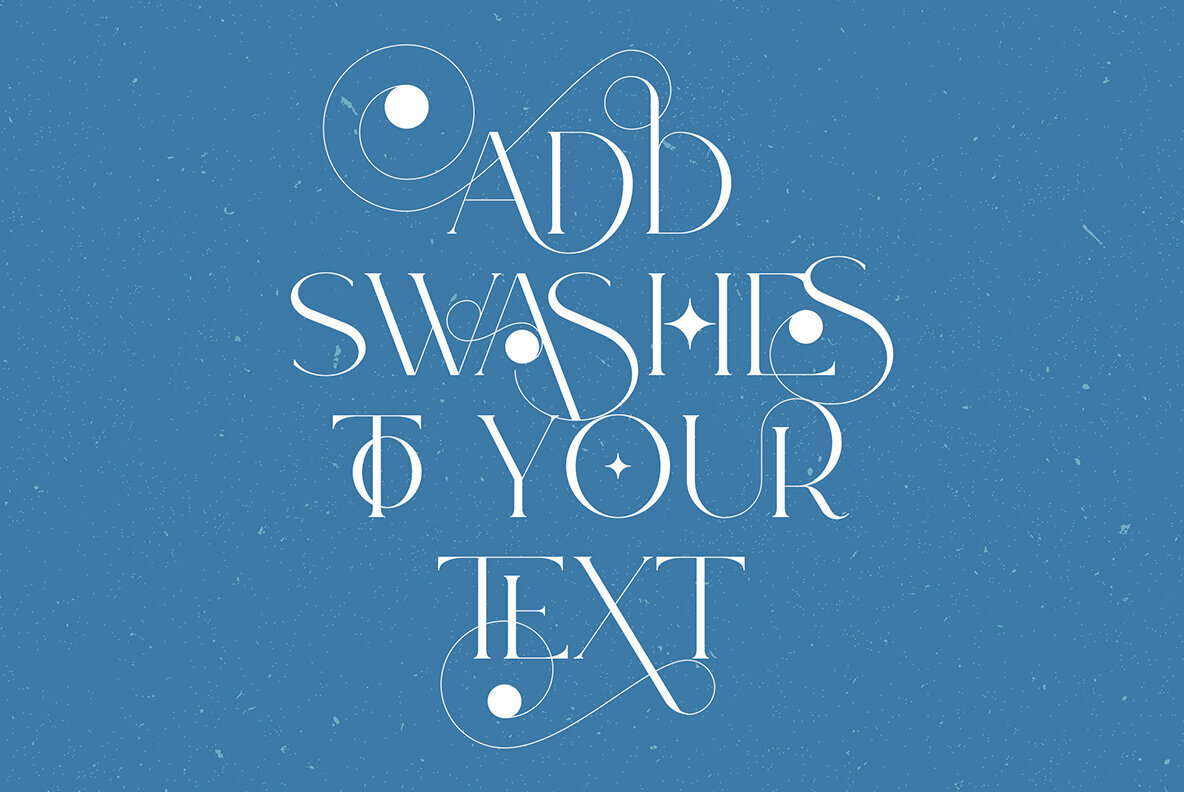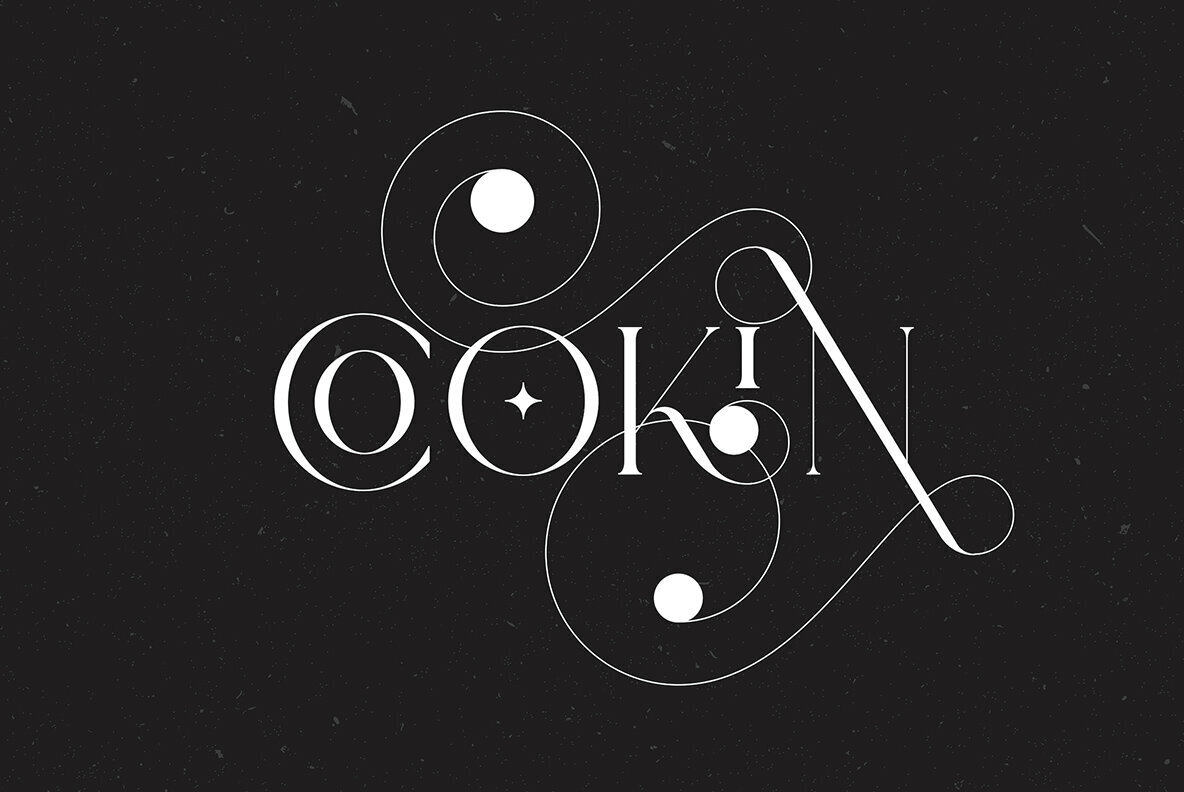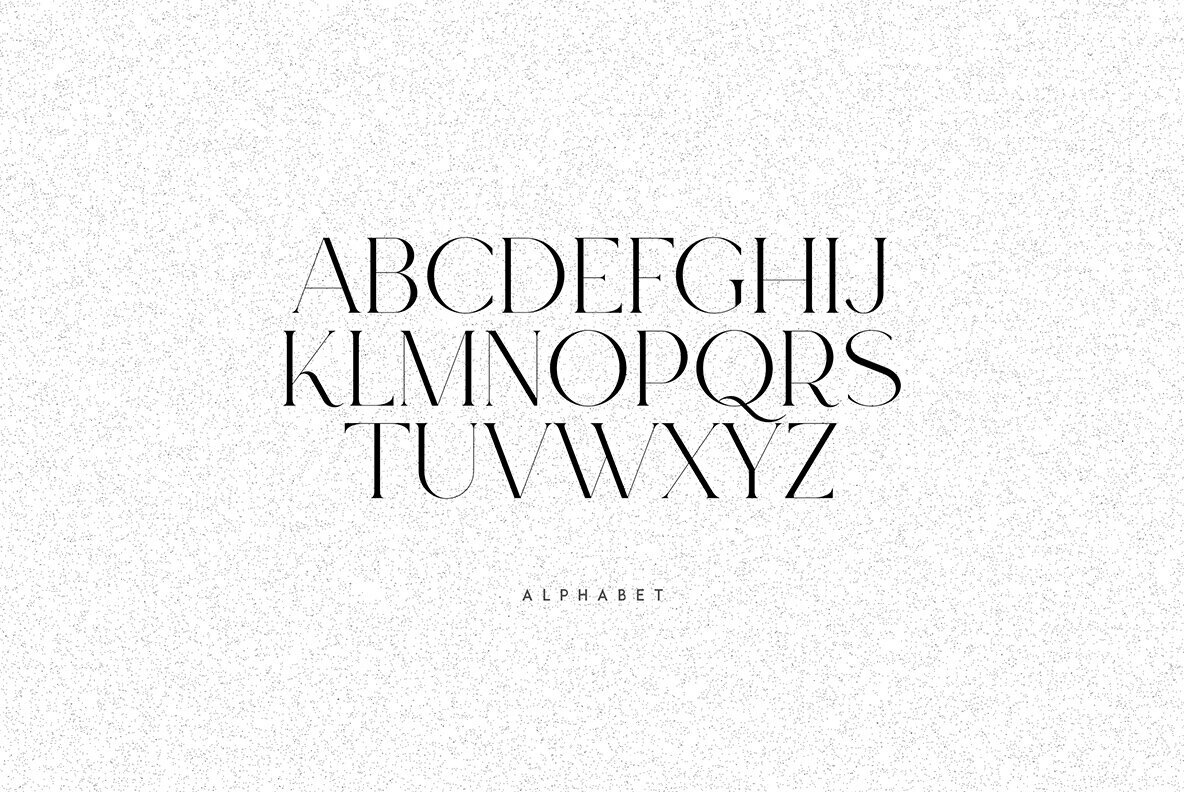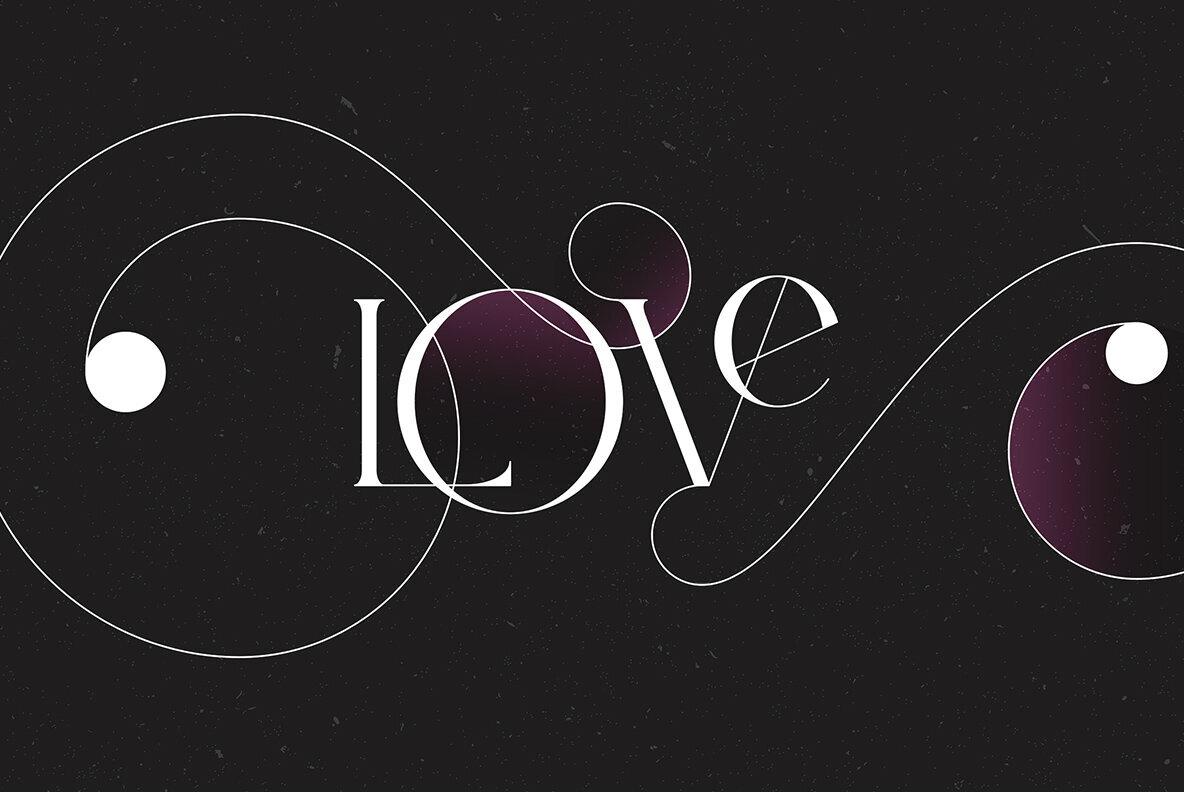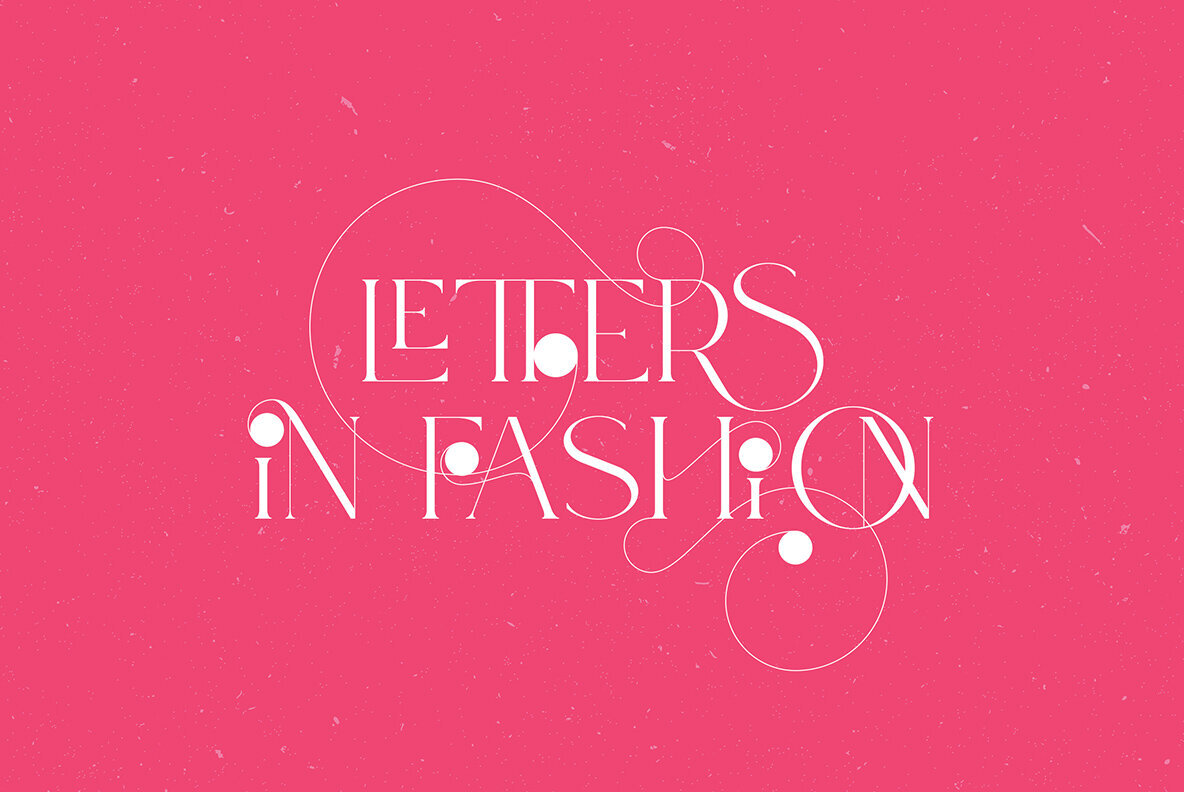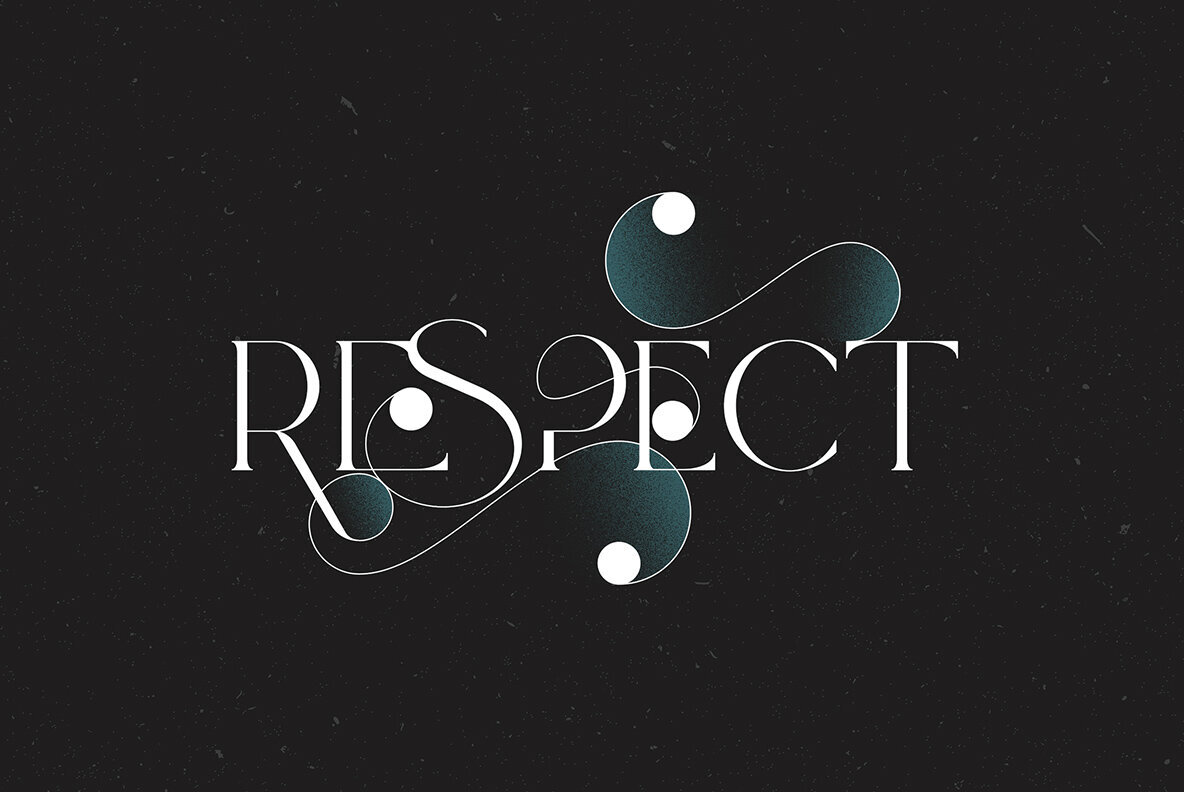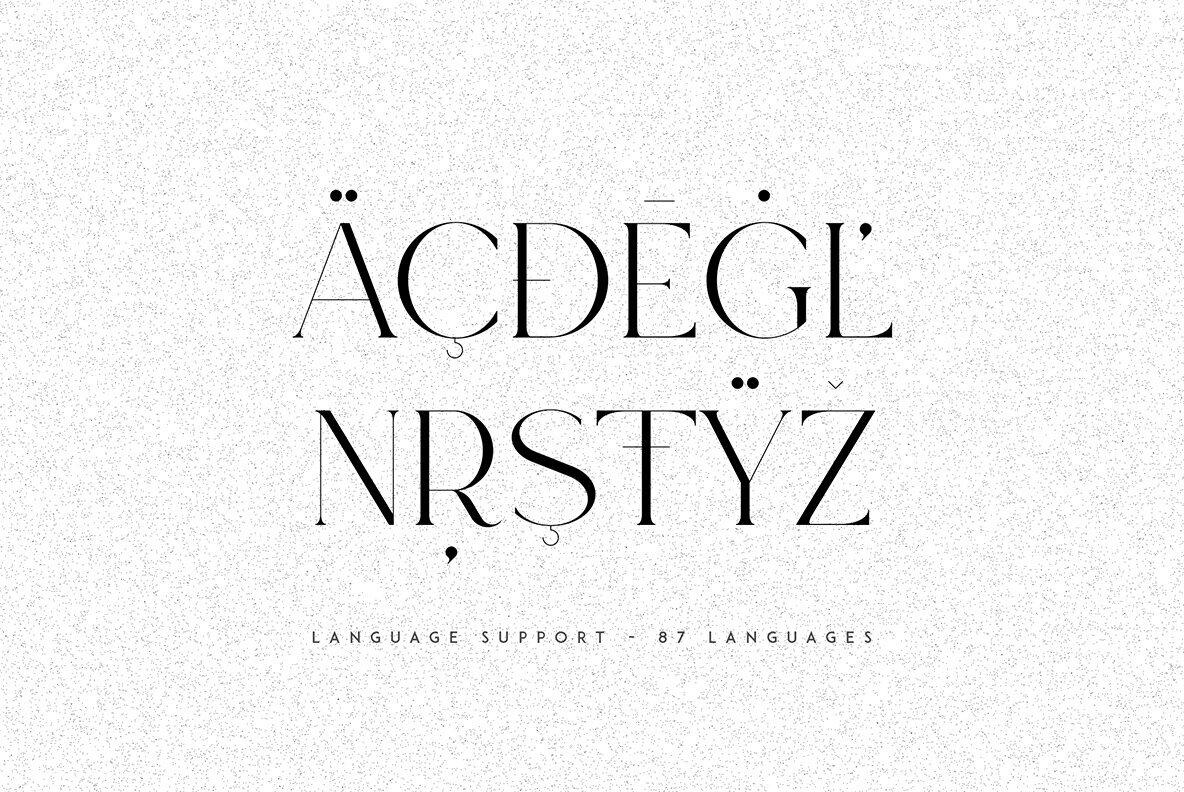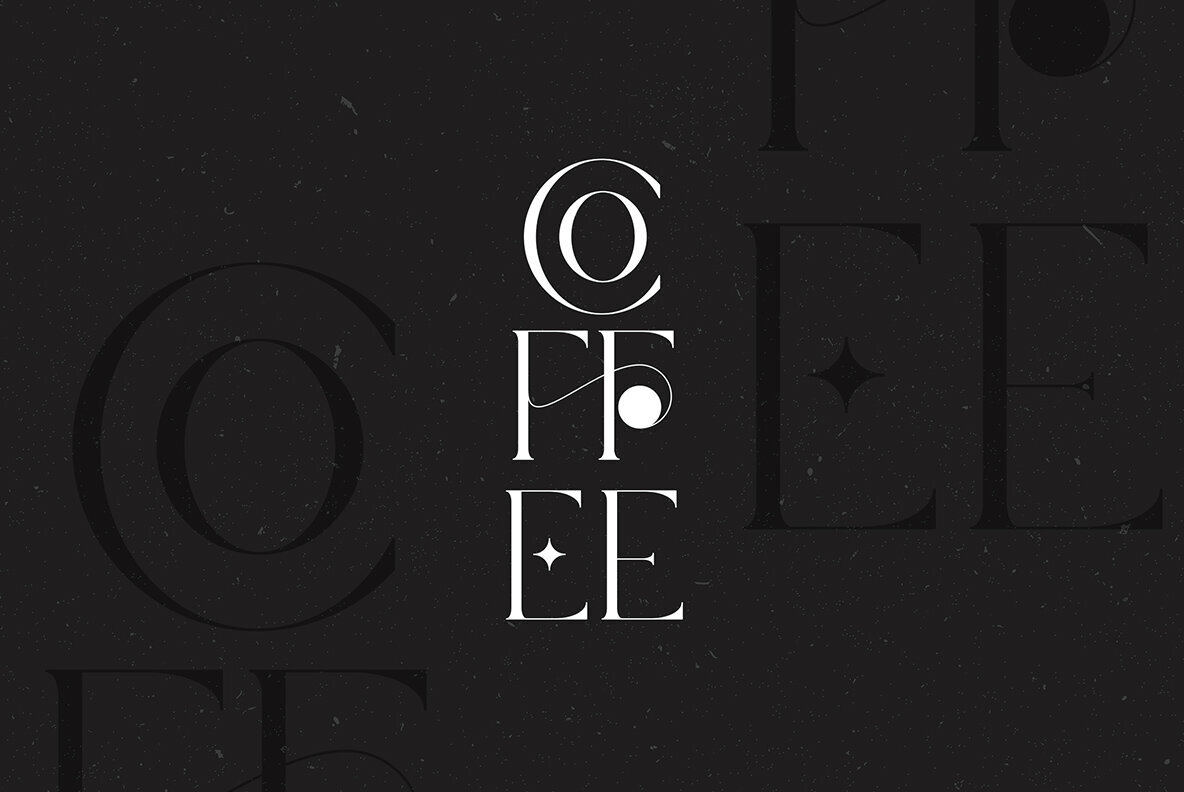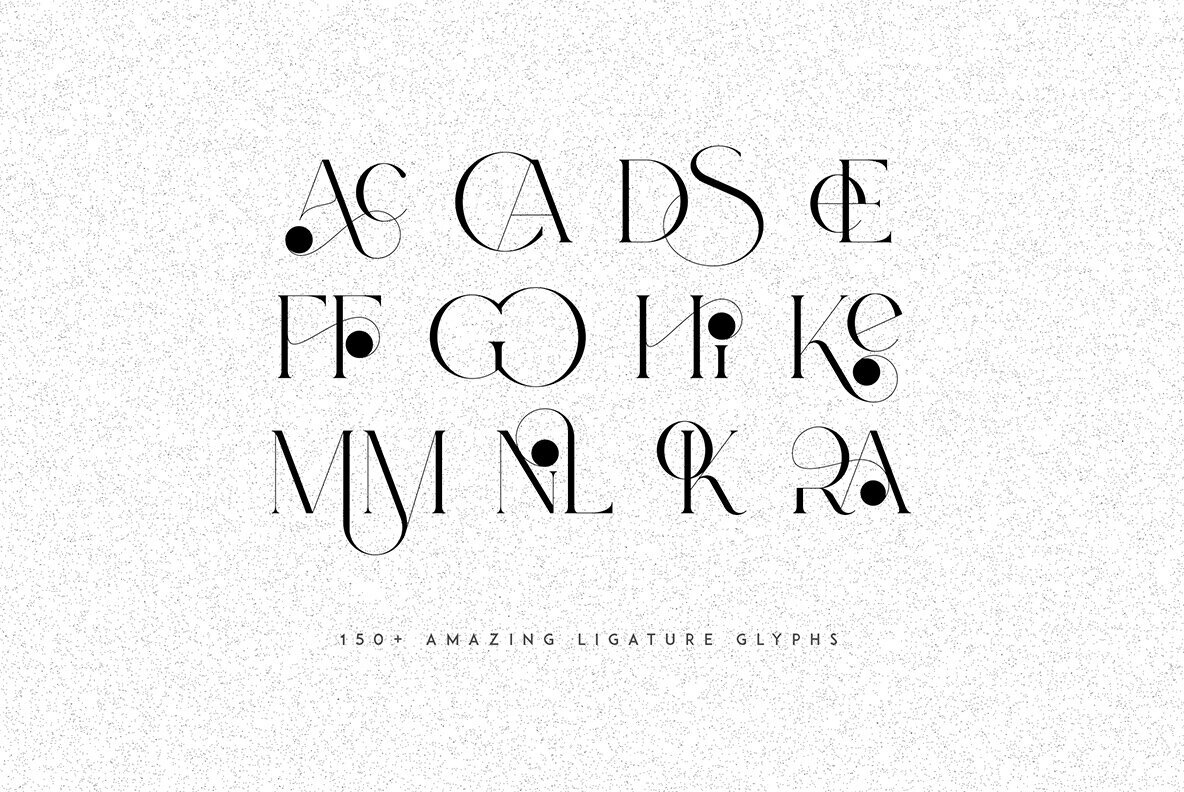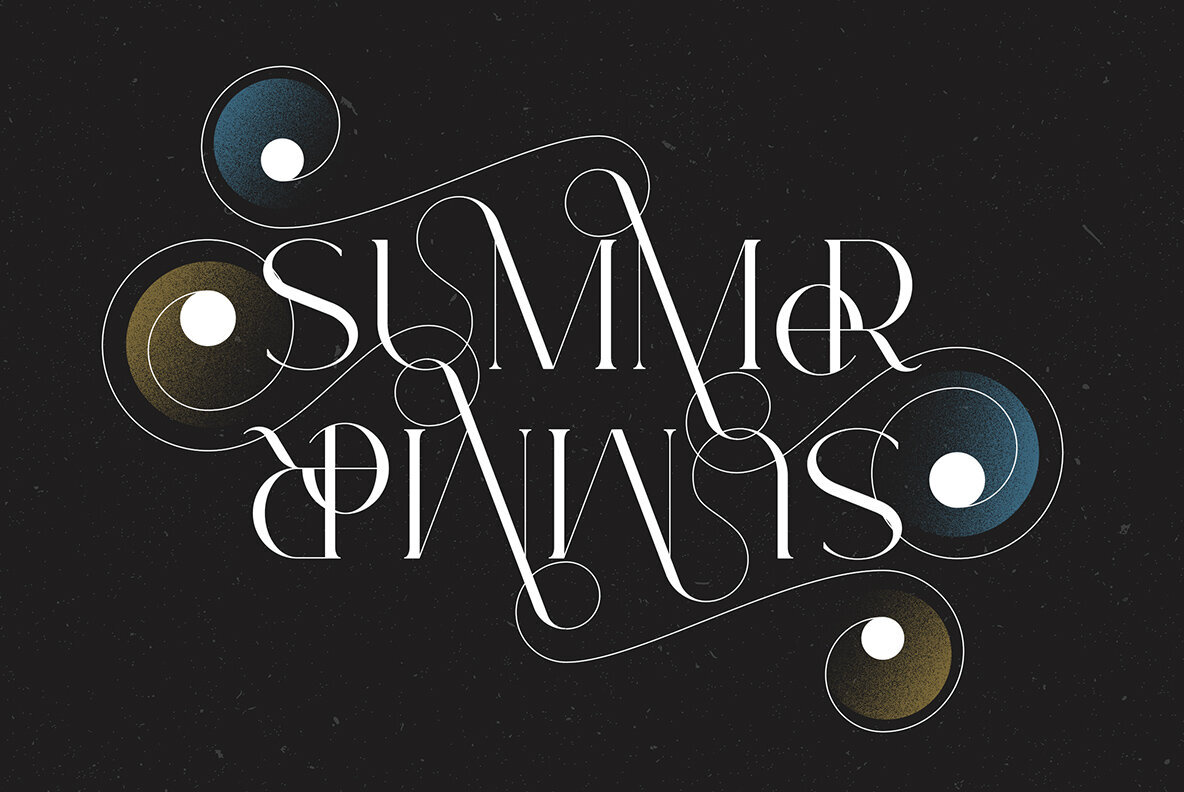
Moon Type Font
Introducing Moon Type, a delightful and versatile serif logo font that exudes creativity and charm. With over 150 ligature glyphs and alternate characters, this font offers a wide range of design possibilities, allowing you to craft unique and visually stunning logos and brand identities. Moon Type goes above and beyond with its extensive collection of 52 swashes, offering you the opportunity to add elegant and decorative elements to your text. These swashes effortlessly elevate your designs, giving them a touch of sophistication and individuality. Not only does Moon Type excel in its aesthetic appeal, but it also showcases its practicality by supporting a staggering 87 languages. No matter where your audience is located or what language they speak, you can confidently communicate your message with this font.